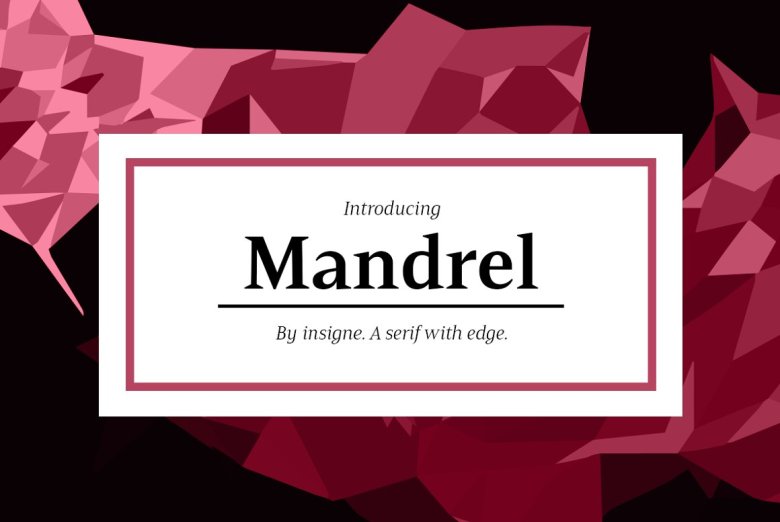
Mandrel Font Family
Mandrel Serif Font
Continue to be a new Serif font family. Introducing Mandrel Font Family! Mandrel was designed by insigne. Courtly in character and elegant in appearance, the face finds great favor among those with whom it seeks audience. With confident air, Mandrel carries itself gracefully before each pair of eyes, never faltering or stumbling in its refined step.
Mandrel Serif Font